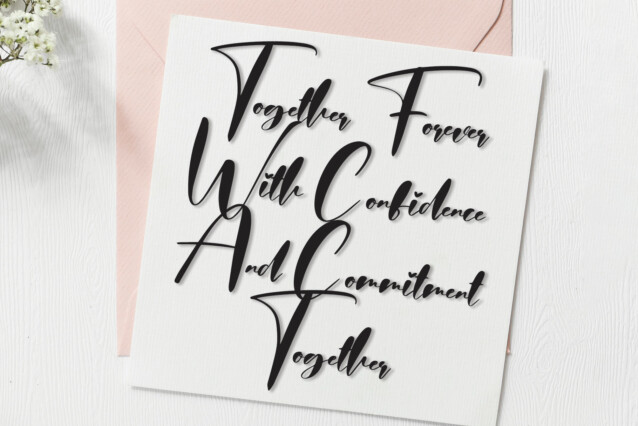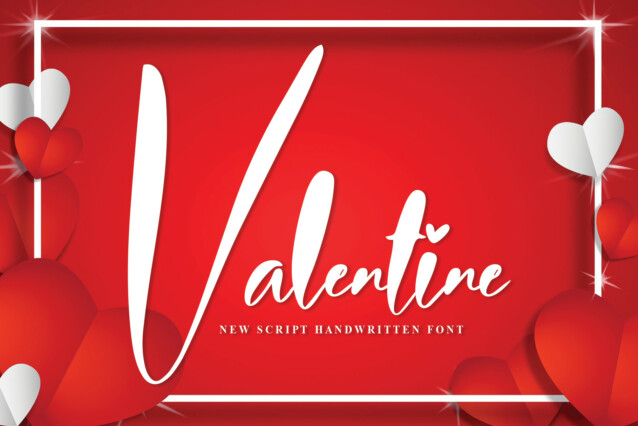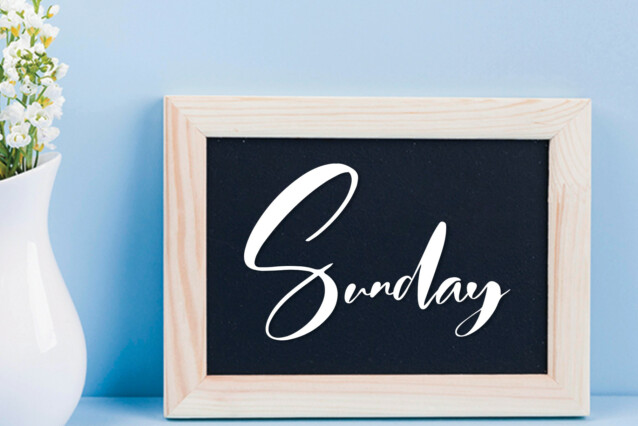
Wonderful Script Typeface
Wonderful Script Typeface is a stunning handwritten typeface. This elegant font is perfect for wall displays, wedding invitations, social media post logos, advertisements, product packaging, product designs, labels, photography, watermarks, invitations, stationery, and any project that requires taste handwriting.